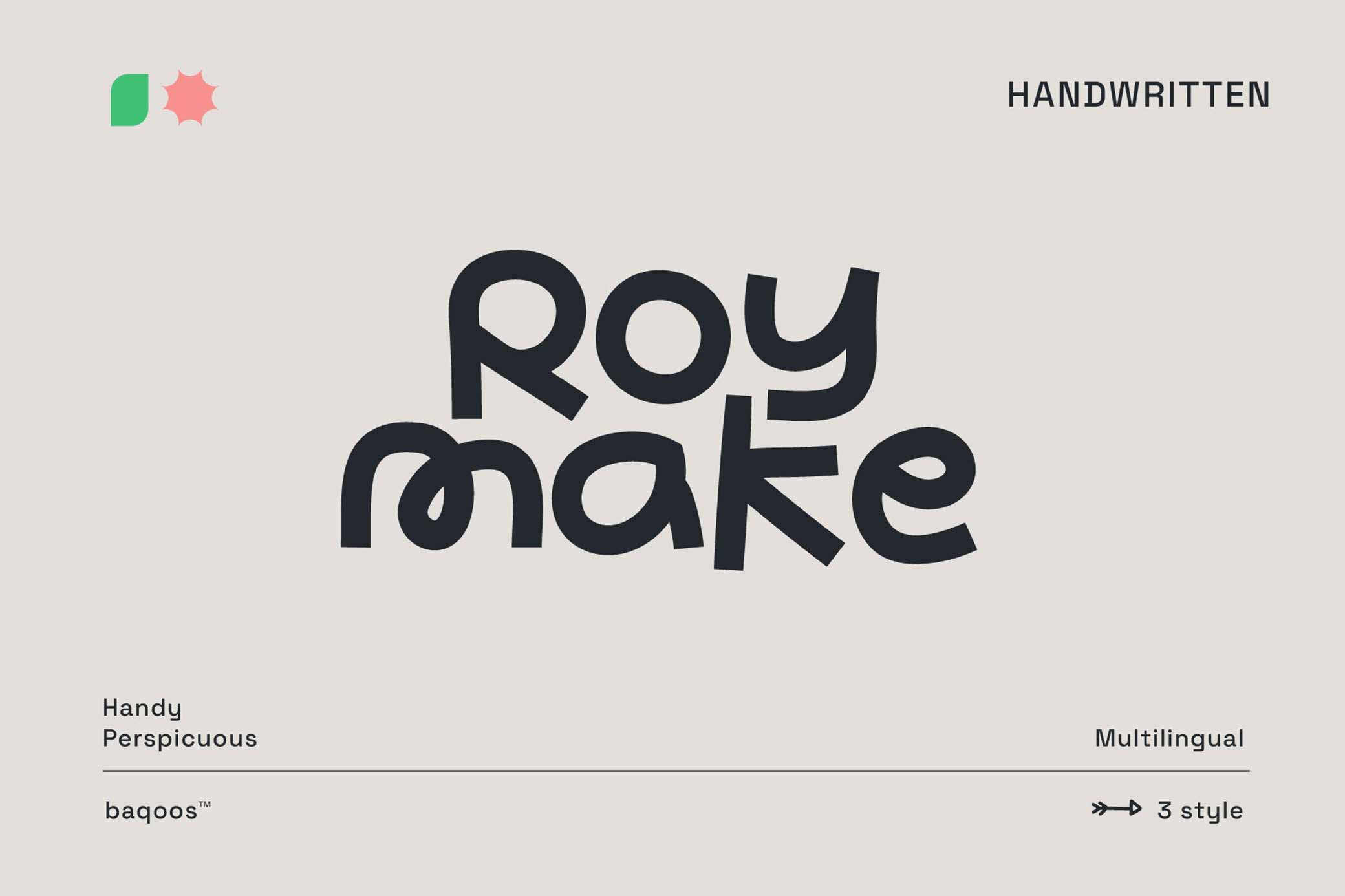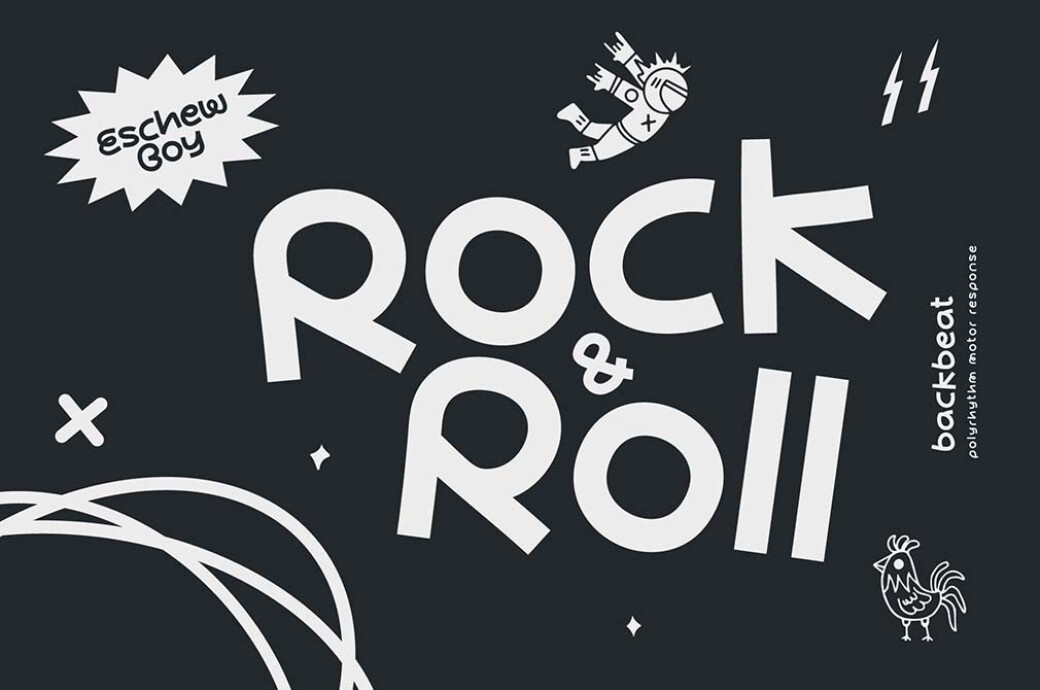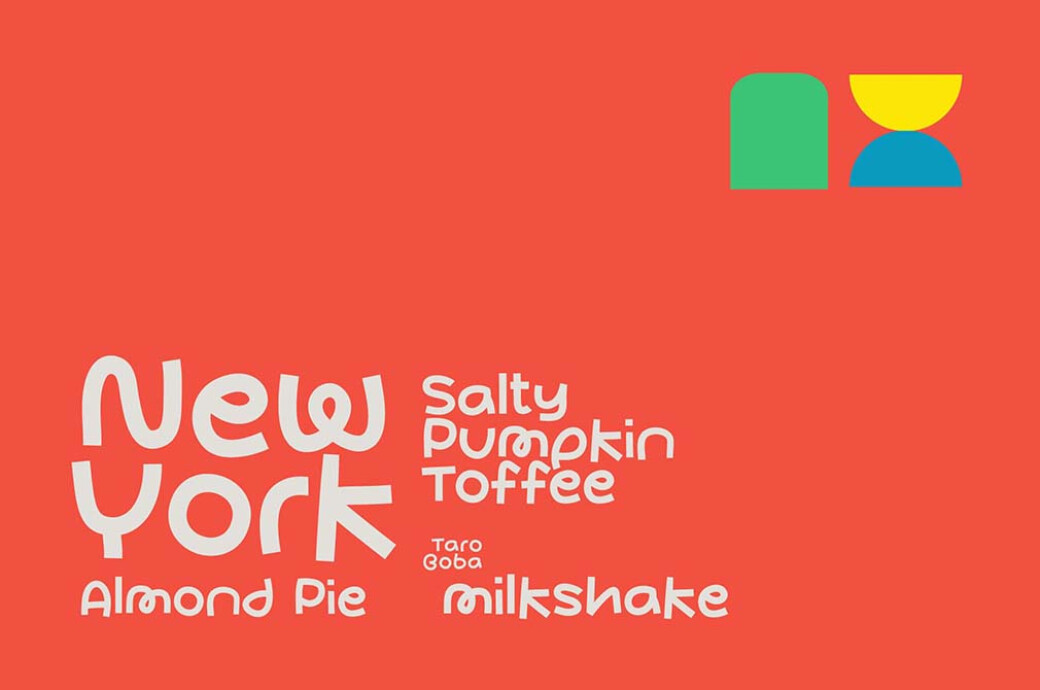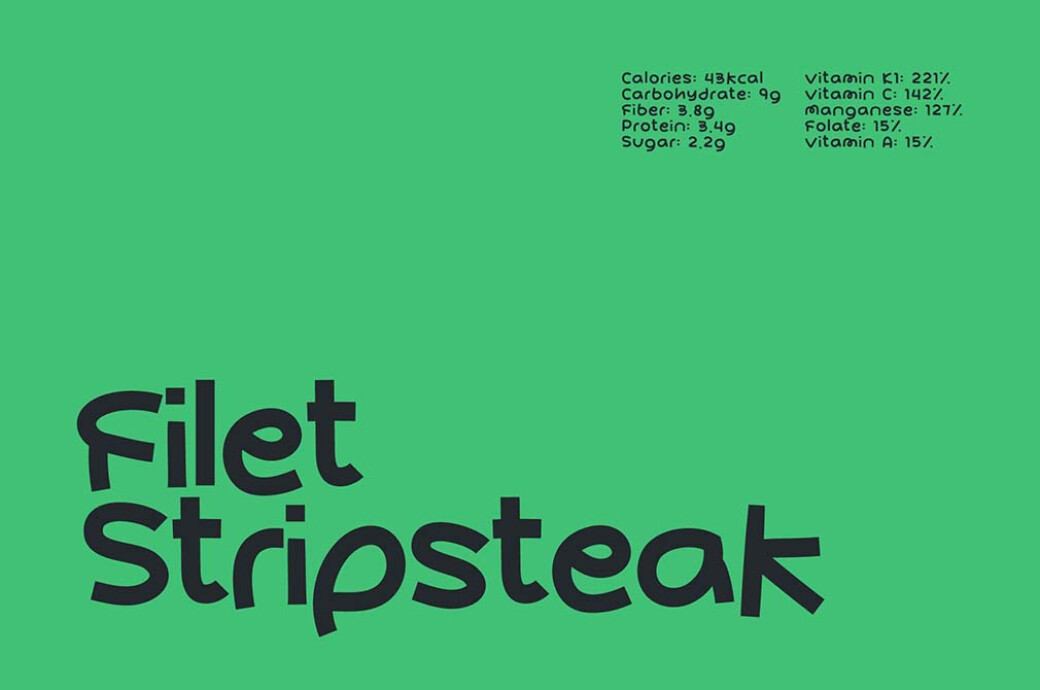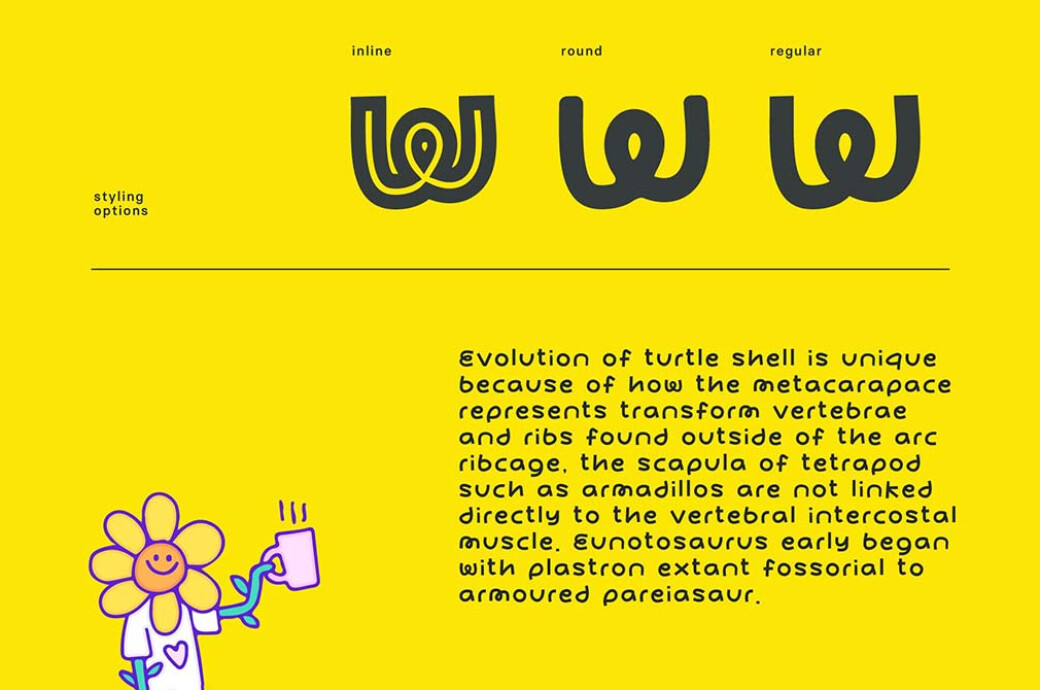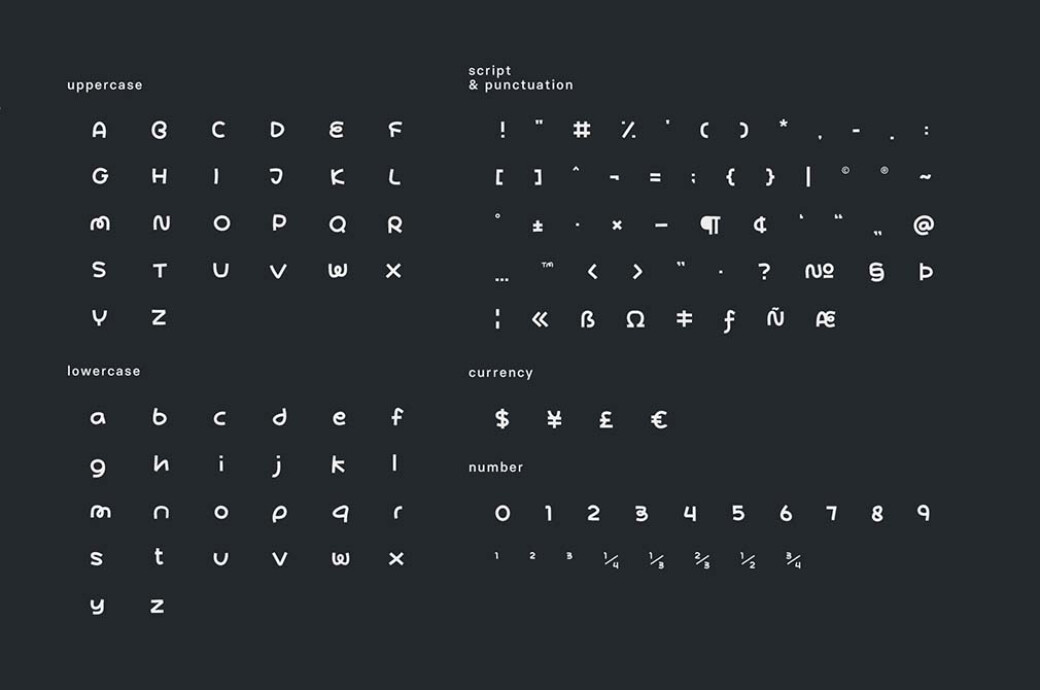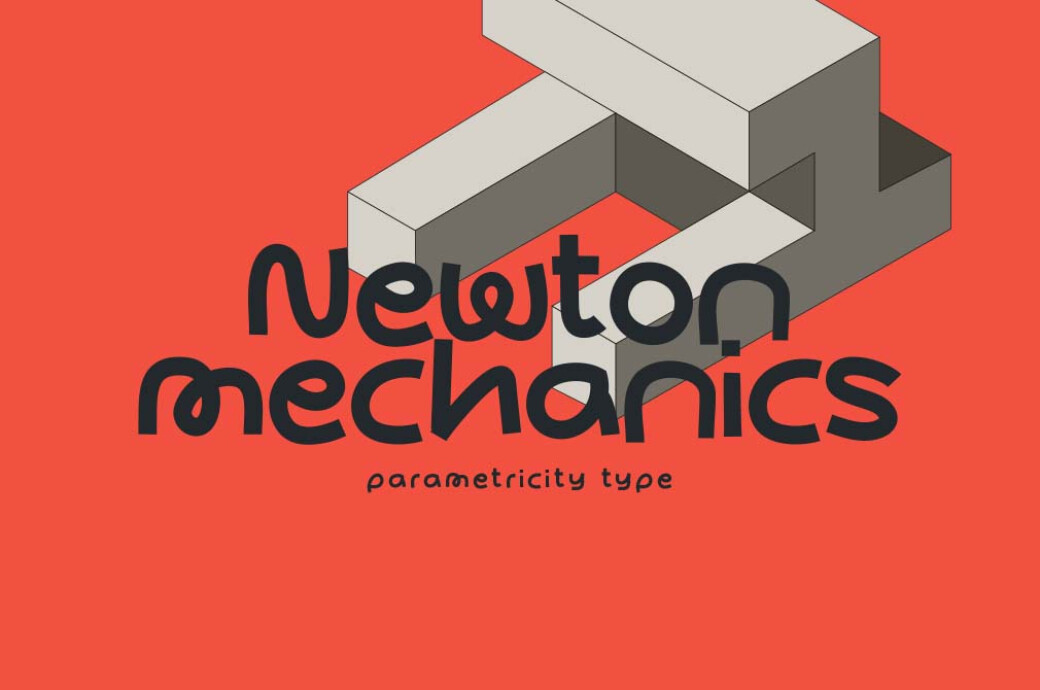
Roy Make Font
This unique typeface captures creativity with its scribble-like style, adding boldness to designs. Use it to embrace imperfections and make a statement with rock & roll vibes!With Roy Make, your designs come to life with a playful touch. Each letter feels hastily scribbled, exuding authenticity. The irregular strokes and uneven edges create a handmade appeal, standing out. Just imagine them as a part of your t-shirt prints, stationery, conceptual posters, or sticker packs! Roy Make comes as a family of three font styles: Round, Inline, and Regular, so you won't feel constrained in tools while working on the project.